31 Stunning Arabic Calligraphy Fonts to Evoke Heritage and Movement in 2026
Arabic calligraphy fonts are more than decorative lettering; they encapsulate cultural history, rhythm, and expressive form that can transform a design. Whether you seek flowing Diwani scripts, the legible grace of Naskh, or the bold geometry of Kufic, choosing the right Arabic script typeface shapes tone and readability.
In this curated collection of 31 options, you’ll find calligraphic Arabic styles and modern typeface adaptations suitable for editorial layouts, posters, packaging, and motion work. I’ll highlight distinguishing features, pairing tips, and licensing notes so you can pick fonts that honor authenticity while fitting contemporary workflows.
1. Syahru Ramadan Font
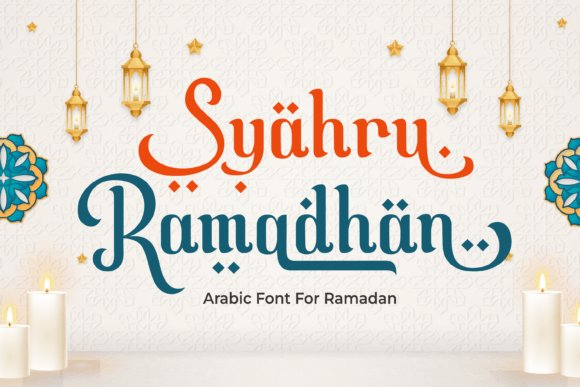
Syahru Ramadan is a handcrafted calligraphic display that channels the serenity of the holy month through fluid strokes, tapered terminals, and an elegant rhythmic flow. With more than a hundred alternates, delicate swashes and contextual joins, it sits among the best Arabic calligraphy fonts for designers who want an authentic yet contemporary Islamic typographic voice.
Beyond its decorative appeal, the family includes OpenType alternates, ligatures and multilingual support that make it reliable across social banners, printed greeting cards, mosque event posters and e-invitations. For practical use combine the font with a neutral sans for body copy, moderate tracking in dense layouts, and reserve ornate alternates for hero text to keep messages legible and ceremonious.
My Recommendation: I’d reach for Syahru Ramadan when creating Ramadan or Eid campaigns, greeting cards, or community event posters because its alternates let you craft expressive, reverent headings without losing clarity. Its balance of tradition and layout control makes it easy to integrate into modern branding systems. Use it for hero text, embossed stationery, and social banners to give projects an instantly ceremonial, authentic feel.
2. Ballaghi Font
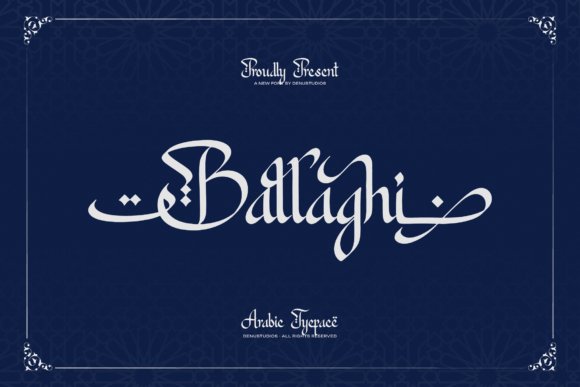
Ballaghi Font translates the flourish and momentum of Arabic script into a dramatic Latin display, characterized by sweeping curves and ornate swashes that read as both exotic and contemporary. The type is highly ornamental by design, giving words a majestic, handcrafted presence suitable for attention-grabbing headlines and identities.
Because of its strong personality, Ballaghi excels in short headlines, logos and signage rather than continuous text; careful kerning and selective alternates are essential to maintain legibility. It ships with decorative stylistic sets that let you craft unique wordmarks, and pairs especially well with minimal sans-serifs and textured or monochrome palettes to emphasize its artisan character.
My Recommendation: I recommend Ballaghi Font whenever a project needs an immediate visual impact that evokes Middle Eastern craftsmanship-restaurant branding, cultural event posters, packaging, or exhibition titles. It’s perfect for short display uses where you can embrace its swashes and flourishes, but avoid deploying it for body text. Pair it with a clean sans and give it generous space to shine.
3. Syamsul Font
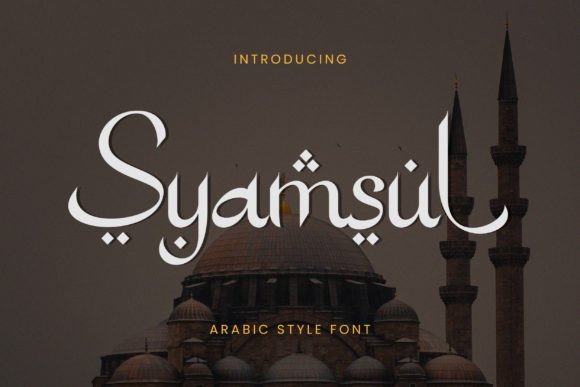
Syamsul Font is an elegant Arabic-style display that balances ornamental detail with disciplined structure, featuring refined curves, moderate stroke contrast and tasteful terminals inspired by classical calligraphy. Its measured x-height and composed letterforms deliver a sophisticated tone that reads as cultured without being ostentatious, making it ideal for editorial and identity work.
Technically, Syamsul includes alternate characters and extended Latin coverage so designers can introduce subtle flourish without overwhelming layout hierarchies. It performs well in both print and web when paired with a minimal sans-serif and slight tracking adjustments, serving as a tasteful bridge between traditional calligraphic influence and modern branding needs.
My Recommendation: I’d choose Syamsul Font for boutique packaging, cultural magazines, book covers or refined stationery where you want a nod to calligraphic tradition without theatrical ornament. Its restrained details make it easy to pair and scale across media, and minor spacing tweaks let it sit comfortably in both headlines and subheads. Use neutral palettes and generous white space to highlight its quiet sophistication.
4. Bakhtiar Font
Bakhtiar channels centuries of Middle Eastern script traditions into a commanding display face that translates Kufic and Naskh motifs into Latin letterforms. With exaggerated horizontal swashes, diamond-shaped diacritics and lively stroke contrast, this design intentionally sits among Arabic calligraphy fonts while maintaining contemporary legibility and visual authority. The palette of rhythmic curves and sharp terminals conveys ceremonial weight without resorting to cliché ornamentation.
Choosing from these 31 Arabic calligraphy fonts gives you access to a wide spectrum of styles-traditional, decorative, and modern-so your projects can communicate authenticity and visual impact. Use the pairing tips and usage notes to match a font’s personality to your content, whether the goal is ceremonial elegance or bold contemporary expression.
Explore the samples, test kerning and diacritics in context, and always confirm licensing before deployment. With the right Arabic script typefaces, your work will resonate more deeply and read more beautifully in 2026 and beyond.